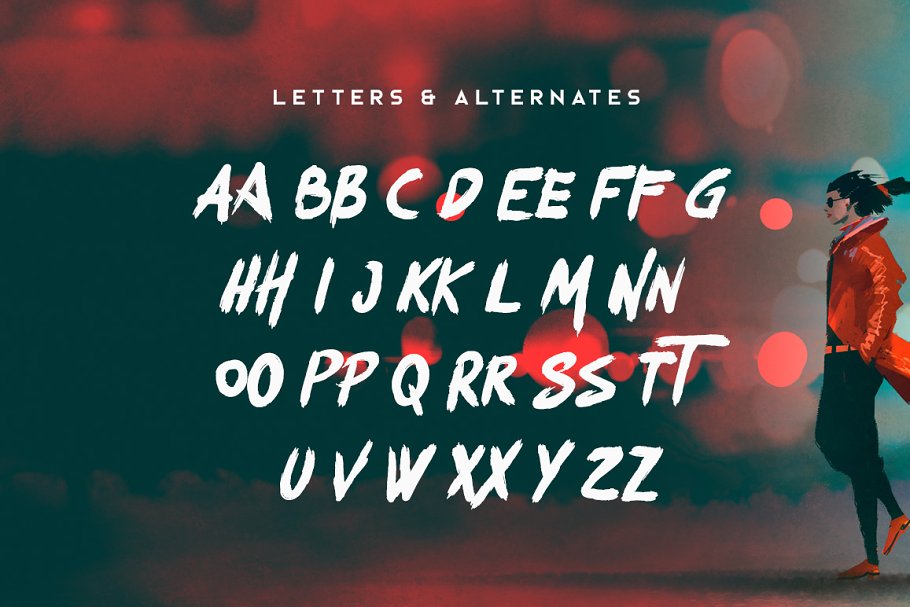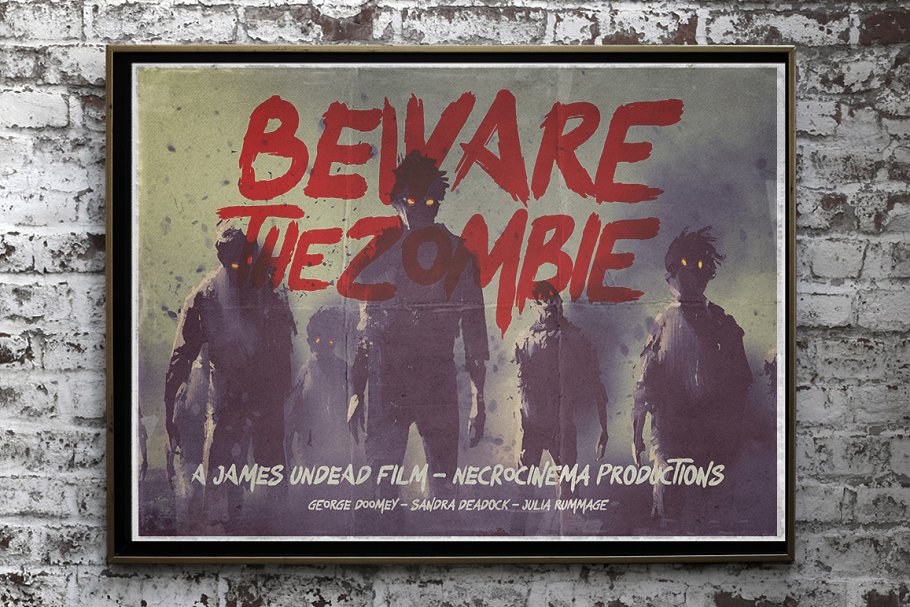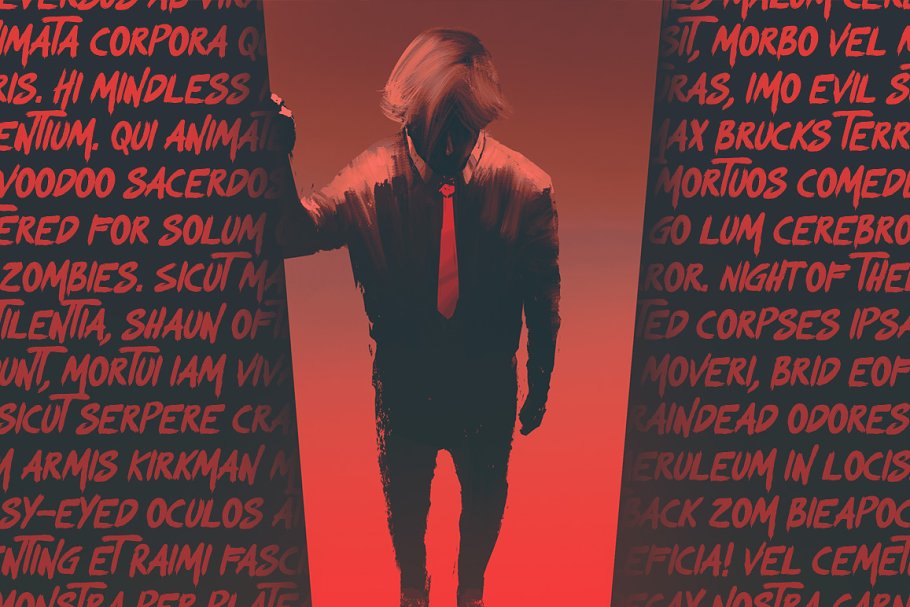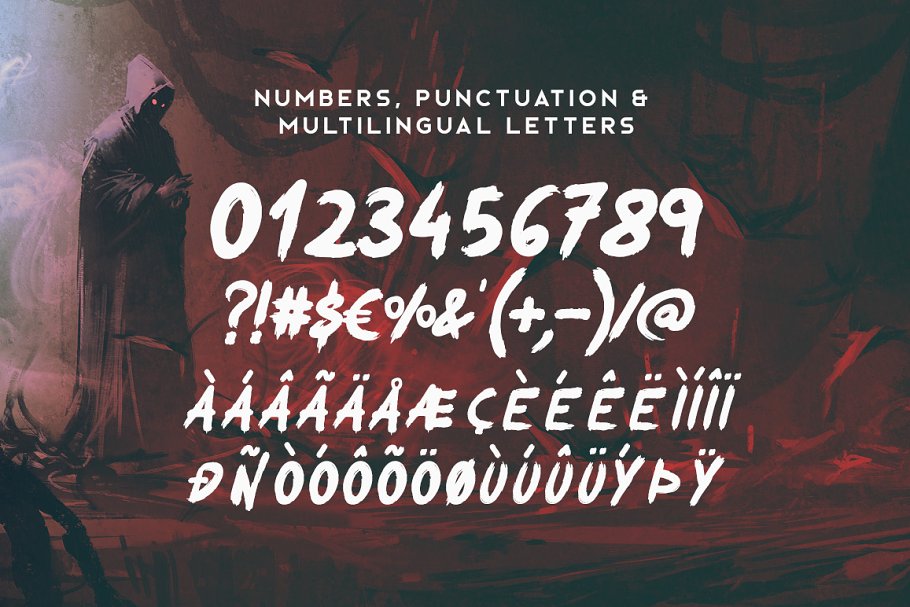
About the Okami Brush Font
Part of the Brush Font Bundle : https://crmrkt, com/VlQW6dOkami is a hand-drawn brush font with rough and bold letters, It’s great for logos, branding, print projects and any attention drawing headline, Okami includes uppercase multilingual letters, punctuation and numbers, It also includes alternate styles for many letters which are toggled via Caps Lock